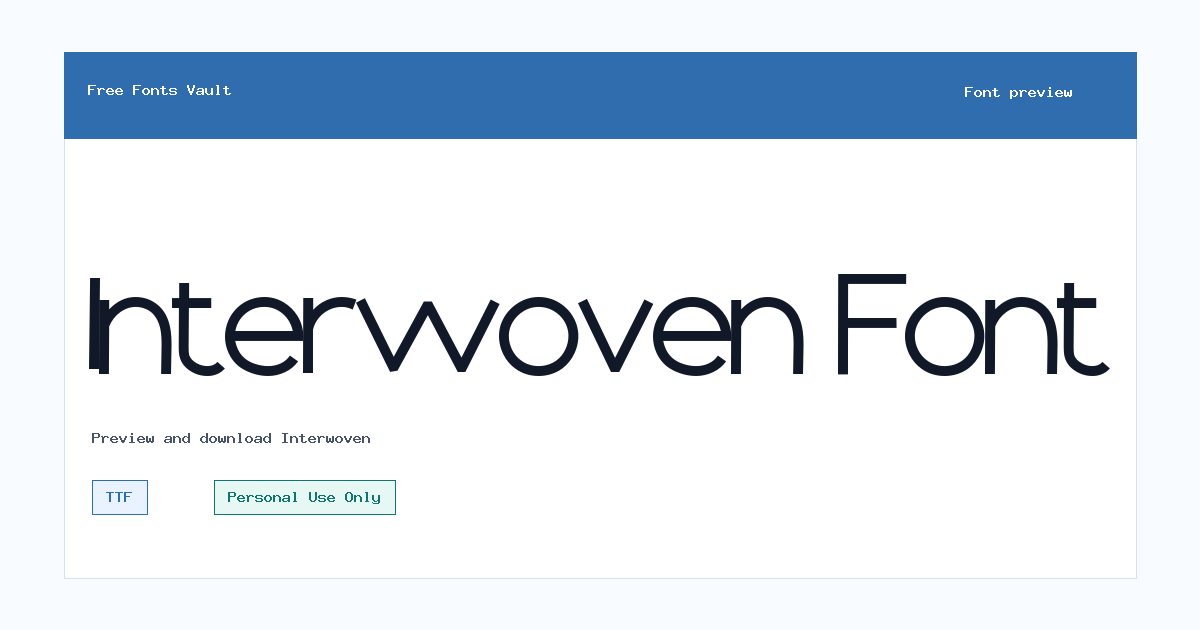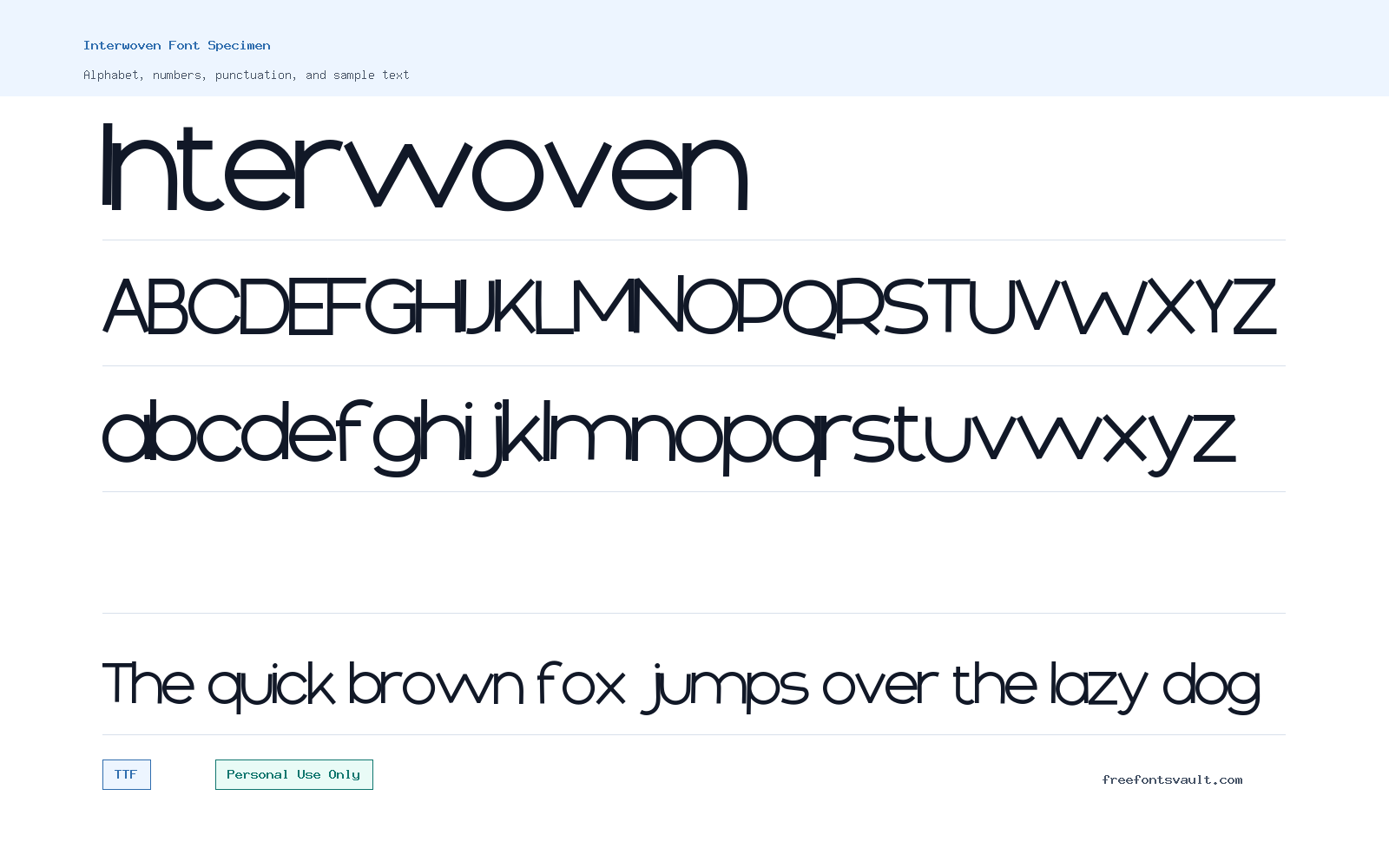
Interwoven
- Designer Lady Hanna
- Foundry HannaBie Creative
Interwoven font.
Interwoven is a personal-use sans serif font family with regular TTF and OTF files, made for visitors who want to test a clean display style before downloading.
About Interwoven Font
Interwoven is listed as a sans serif font from Lady Hanna and HannaBie Creative. The family is offered in a regular style with standard upright styling and 400 weight, so it is best approached as a single-style font rather than a large type system. Because there are no confirmed extra weights, italics, or extended family details, use the preview box to judge how the regular cut handles your exact wording before using it in a finished design.
This font is most useful when you need a short piece of text to stand apart, such as a title, quote graphic, social post, label, invitation heading, or personal project logo draft. Test it at the size you plan to use, especially if your text includes long words, numbers, punctuation, or mixed uppercase and lowercase letters. If the preview feels too busy at small sizes, keep Interwoven for headlines and pair it with a simpler body font for longer reading.
- Regular upright style with 400 weight
- Personal-use headlines, title graphics, and short display text
- Invitations, quote cards, labels, and social media images
Who designed Interwoven?
The font is credited to Lady Hanna, and HannaBie Creative is listed as the foundry.
What is Interwoven best used for?
Use it for short personal-use text such as headings, quote images, labels, invitations, or social graphics. Test longer text carefully before relying on it for readability.
Does Interwoven include bold or italic styles?
Only a regular upright style is listed. No bold, italic, or extra weights are confirmed from the available font details.